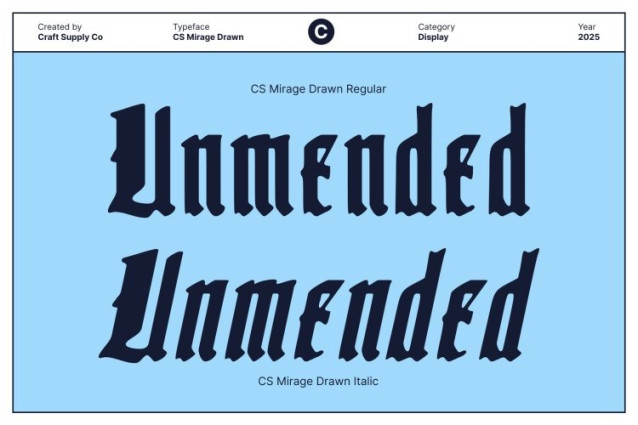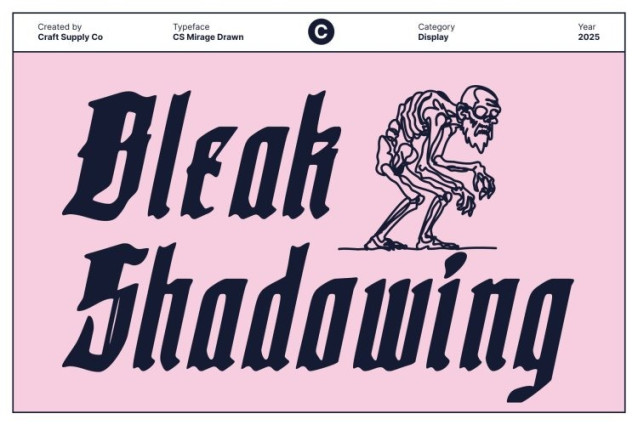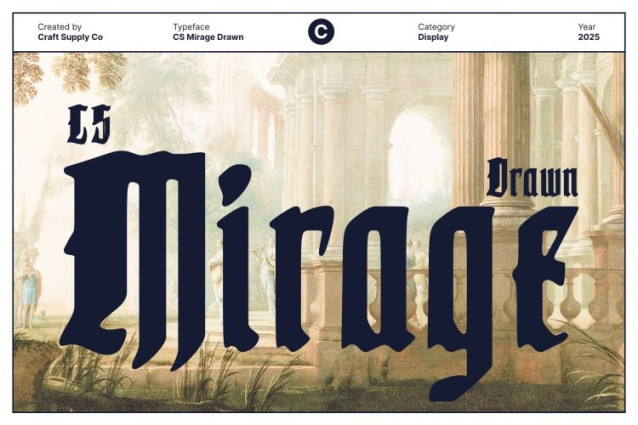
CS Mirage Drawn Font
CS Mirage Drawn Font This is a Blackletter Display font designed with bold, dramatic strokes that immediately command attention. Rooted in historical forms yet crafted with modern flair, this font delivers a powerful visual impact. Its sharp angles and structured shapes bring a strong sense of tradition, while its expressive character keeps it fresh and contemporary.
Handmade Drawn Texture for Artistic Authenticity
The drawn texture adds a handcrafted artistic quality that enhances every letterform. Imperfect in the most intentional way, these textured details make the font feel alive rich with depth, personality, and human warmth.
Ideal for Book Covers, Posters, and Branding Projects
This font shines in creative applications that require both drama and clarity. Its striking presence makes it perfect for book covers, heritage-inspired posters, brewery labels, gothic branding, or any visual that needs a combination of historical influence and modern expressiveness. It elevates titles, headlines, and logos with a timeless yet bold aesthetic.
Classic Roots with a Unique, Expressive Edge
Balancing tradition and creativity, This font blends classic Blackletter heritage with an artistic twist. Its dramatic strokes and textured finish create a distinctive personality that enhances any design it touches.